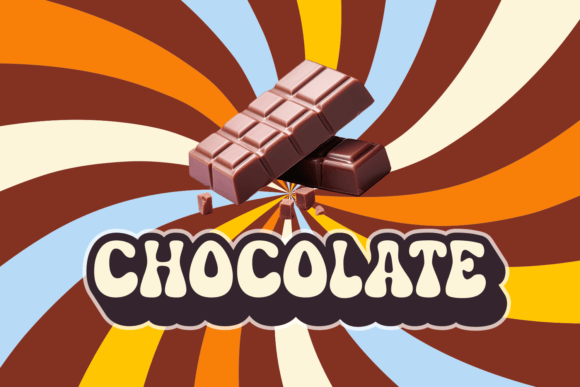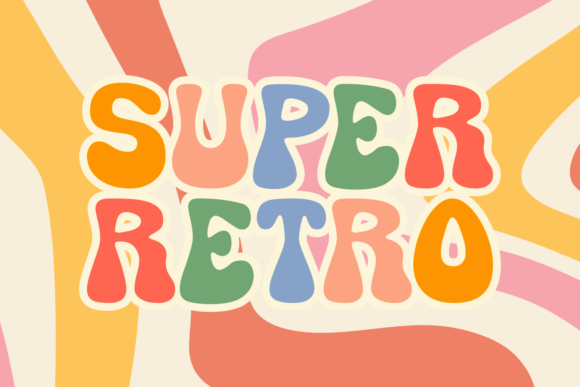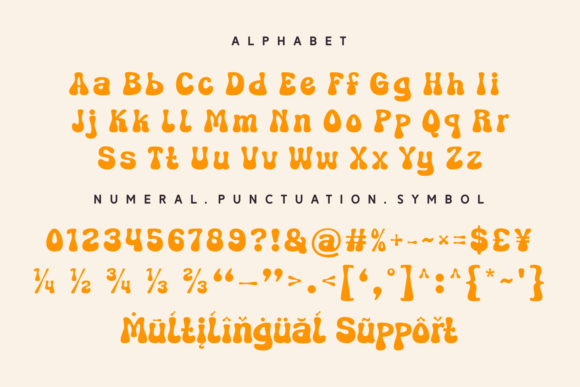
Choco Groovy Font
Unleash the creativity in you with these captivating display fonts. These intricately designed fonts are sure to add a cute and playful accent to your projects. Ideal for apparel designs, the authenticity of these fonts speak volumes on your style. Transform your book covers into visual delights or seamlessly weave your brand’s magic into the hearts of your customers with these clean and tailored fonts.
Explore the grandeur of these fonts on magazine covers, express yourself through stirring quotes or simply round off your designs with a smooth finish. Our diverse range includes retro and groovy fonts that bring back the charm of the 70s and 80s, wavy fonts that exude an undulating rhythm, and simple fonts built for elegance and efficiency.
Ever needed something perfect for your T-shirts or greeting cards? Look no further as these fonts effortlessly infuse a unique vibe to your creatives. Give your logo a distinct face with our logotype fonts or paint a striking picture on your packaging with our package fonts.
Take your Instagram game a notch higher or lend a voice to your blog that resonates with your audience. Our fonts also support multiple languages, ensuring you overcome all linguistic barriers. With additional support for Silhouette, the possibility of shaping a breathtaking canvas is endless. Each font, an ode to the mastercraft of 7ntypes, is your key to a world brimming over with artistry and imagination.